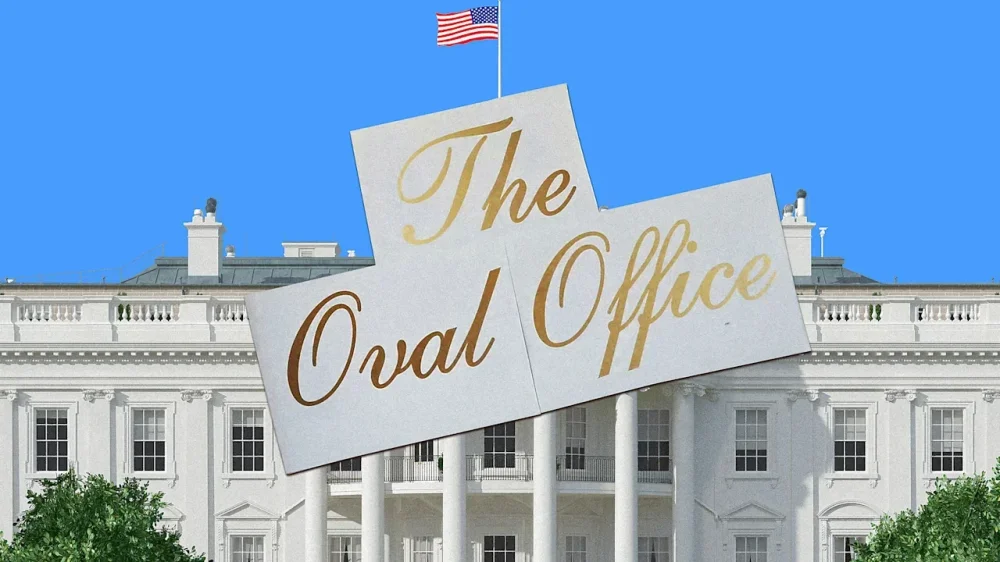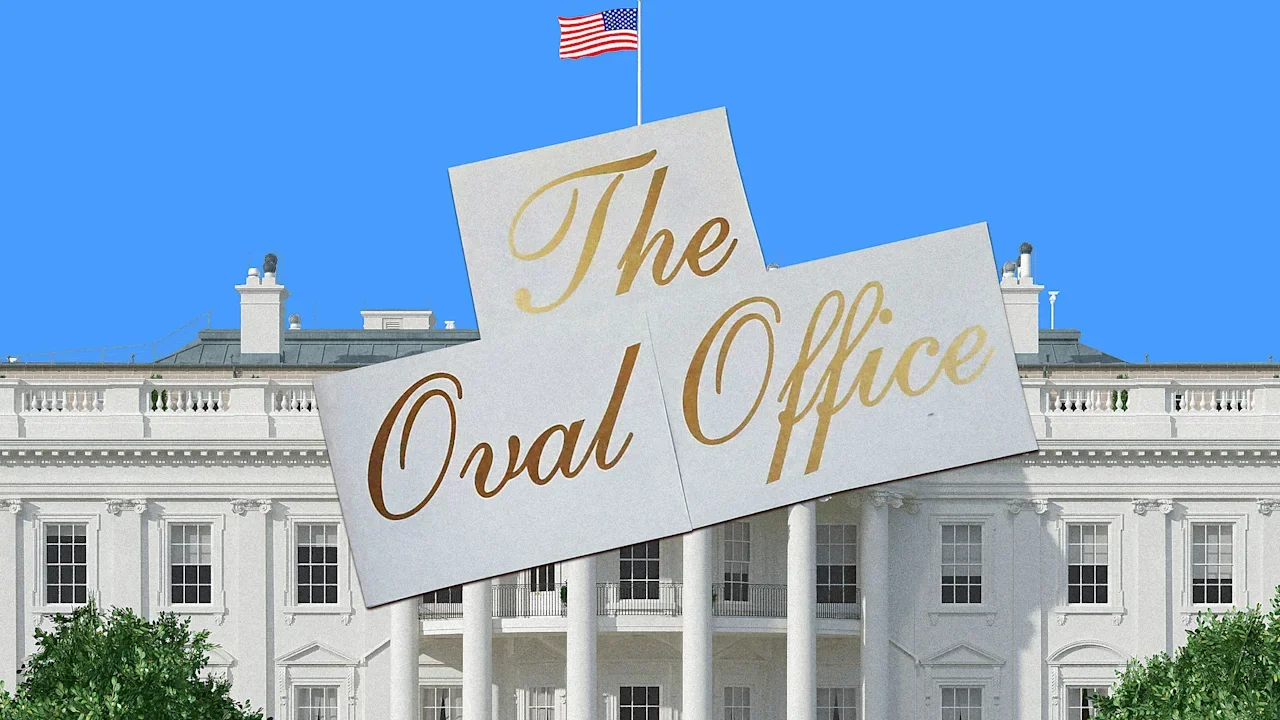
The font on that cringe new Oval Office signage has a storied history
In President Donald The President’s ongoing second-term White House remodel, even the typography is getting the Mar-a-Lago treatment.
New signage has begun rolling out at the White House this fall. First, the words “The Presidential Walk of Fame” appeared in September in the gold Shelley Script on the West Colonnade. The signage appears above the presidential portraits The President installed to troll former President Joe Biden.
Now new images show lettering that reads “The Oval Office” written in the same font, and which appears to be going up on its exterior wall.
Shelley script goes off-script
The President’s new, gold White House signs are aesthetically aligned with other recent redecoration efforts, including his planned ballroom. To critics who find it tacky, though, it’s not necessarily the type choice that’s off.
“Shelley is one of a handful of long-standing, go-to formal script fonts,” Charles Nix, senior executive creative director at Monotype, tells Fast Company in an email. “It’s testimony to the quality of the design (and the skill of the designer) that it perseveres as visual shorthand for formal or ‘fancy.’”
Famed type designer Matthew Carter designed Shelley Script for Linotype in 1972. It’s been used for everything from winery websites to book covers, according to Fonts in Use, and it’s a go-to choice for wedding invitations.
“The typeface is perfectly fine, and it does seem in keeping with the dignity of the White House,” type historian Paul Shaw says. “The problem is not the fit, but the idea of even slathering the phrase ‘The Oval Office’ on the exterior. It looks like part of a theme park.”
Further, Shaw says, “The ‘Walk of Fame’—is this Hollywood or Las Vegas?—cements that tacky association. Fortunately, this is one of the least egregious things that this short-fingered vulgarian has done in the past 10 months.”
Mar-a-Lago North
Script fonts also seem less the domain of the West Wing than the East (RIP), before The President had it torn down to make room for a 90,000-square-foot ballroom.
The fonts of the West Wing are the fonts of the state, like Courier New, which is used in executive orders. While the West Wing is for government functions of the executive branch, the East Wing, where the offices of the First Lady were once located, was for soft power. Before it was destroyed, the East Wing housed the White House Calligraphy Office, which produces the White House’s most famous script lettering on social documents like invitations and state dinner menus.
The President has already added gilded embellishments to the Oval Office and turned the Rose Garden into a concrete patio that resembles the one at his Florida home and club. Now it seems he’s cribbed its typography as well, with each detail making the people’s house appear much more like Mar-a-Lago North.